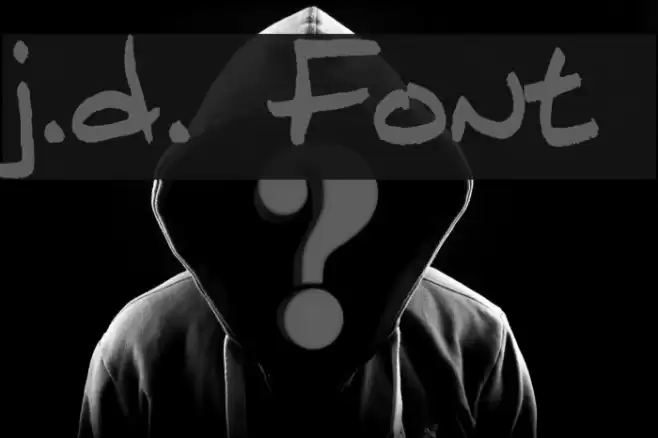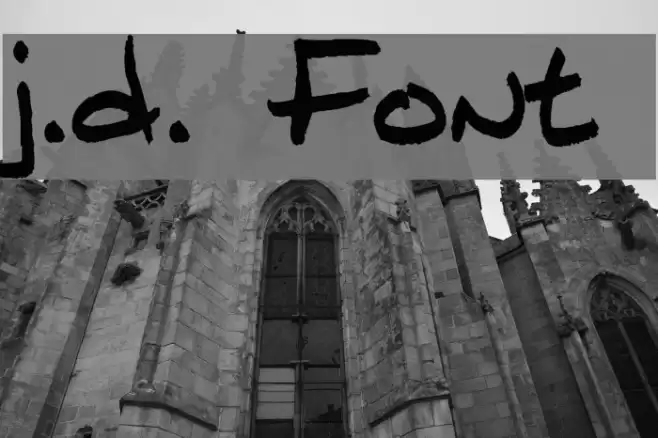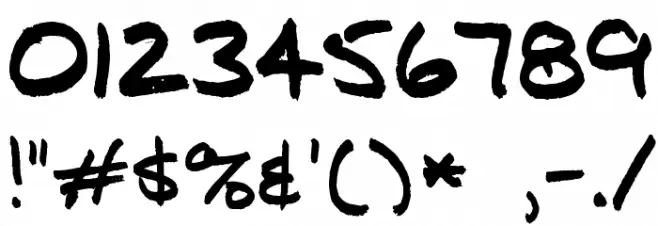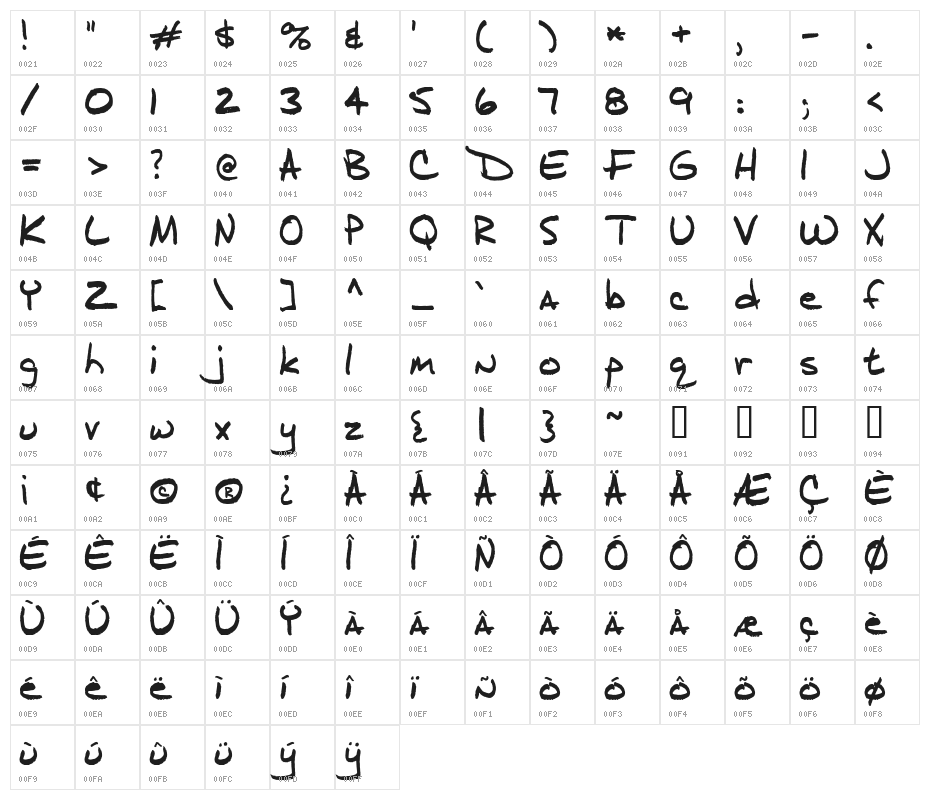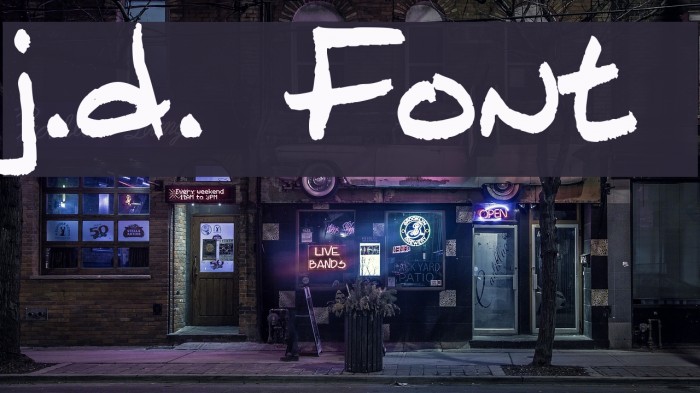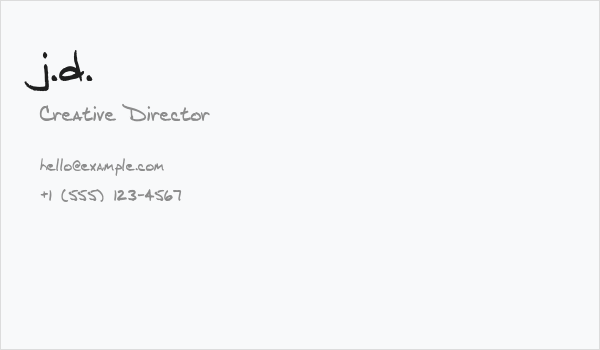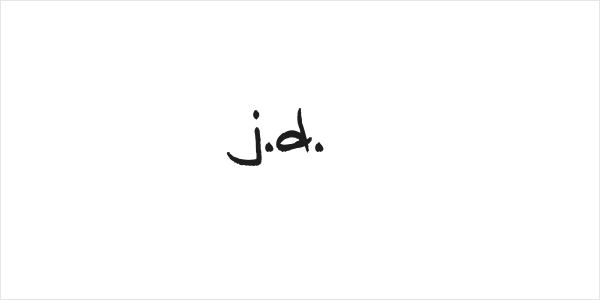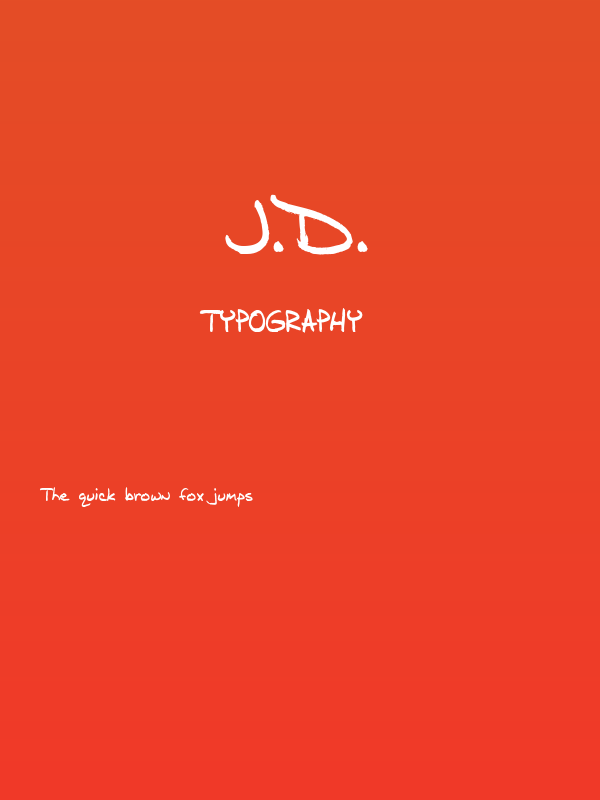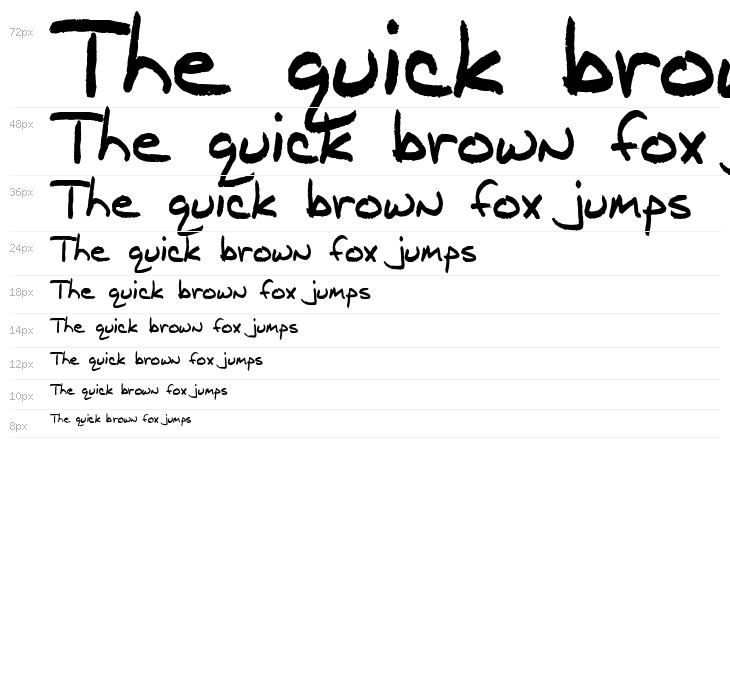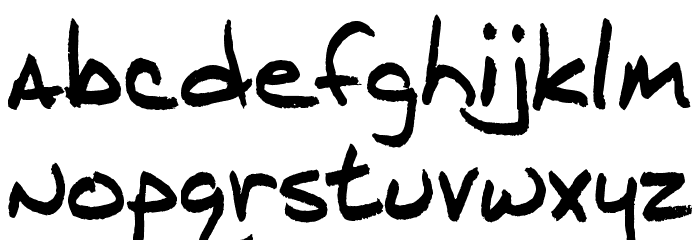
j.d. Font
j.d. Description
This font exudes a casual and expressive style, reminiscent of handwritten text with a bold, brush-like appearance. The characters are slightly irregular, adding to the authentic, personal feel. The uppercase and lowercase letters maintain a consistent style, with rounded edges and a playful, dynamic flow. Numbers and special characters follow the same aesthetic, ensuring a cohesive look across all text elements. The font's organic and informal nature makes it ideal for projects that require a personal touch or a creative flair.
A bold, handwritten-style font with a casual, expressive look from Handwritten fonts.
- Proposed Projects: Ideal for greeting cards, personal branding, creative posters, and artistic projects.
- Overall Style: Casual, Artistic
- Use Case: Logos, Headlines, Creative projects